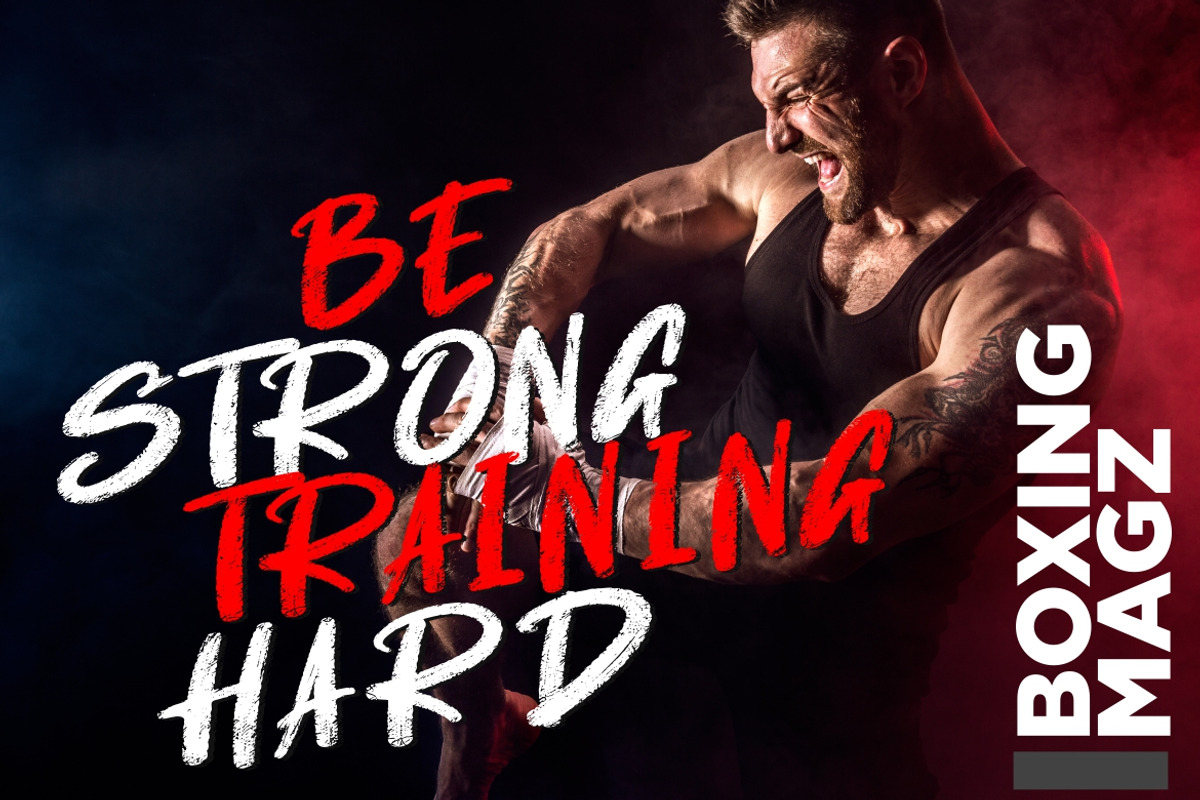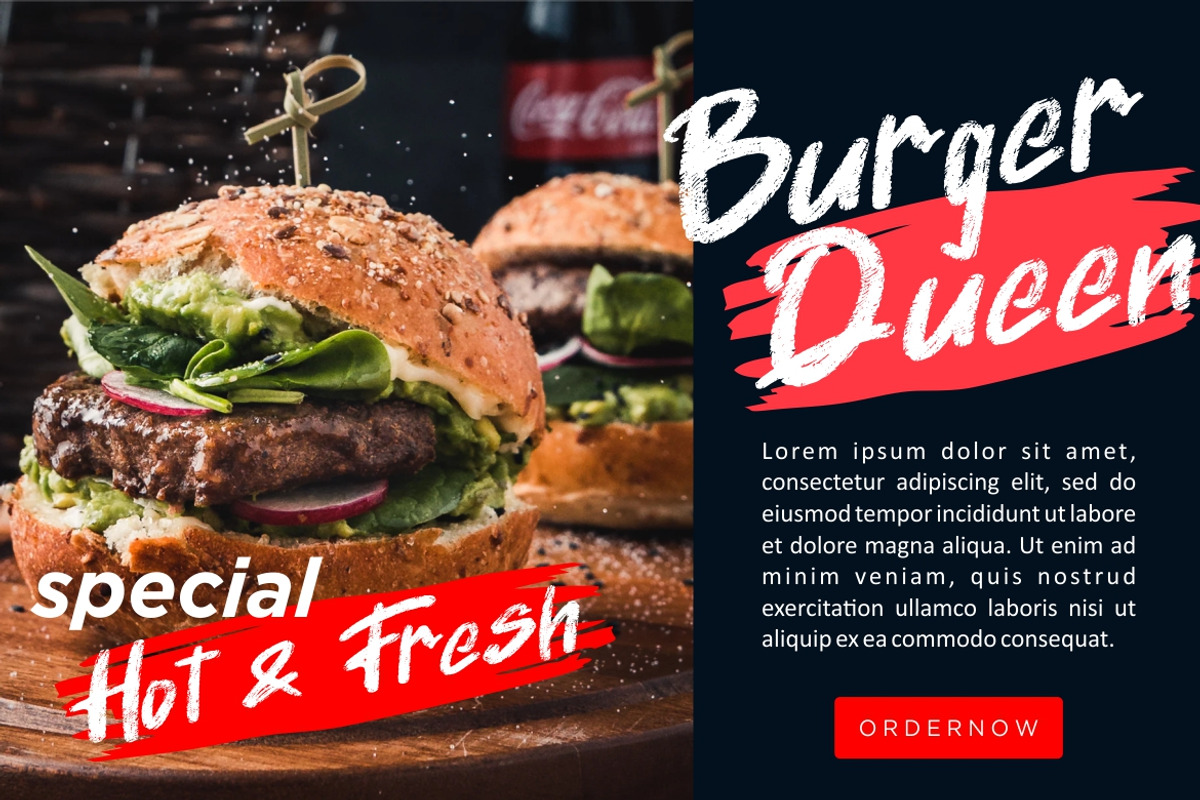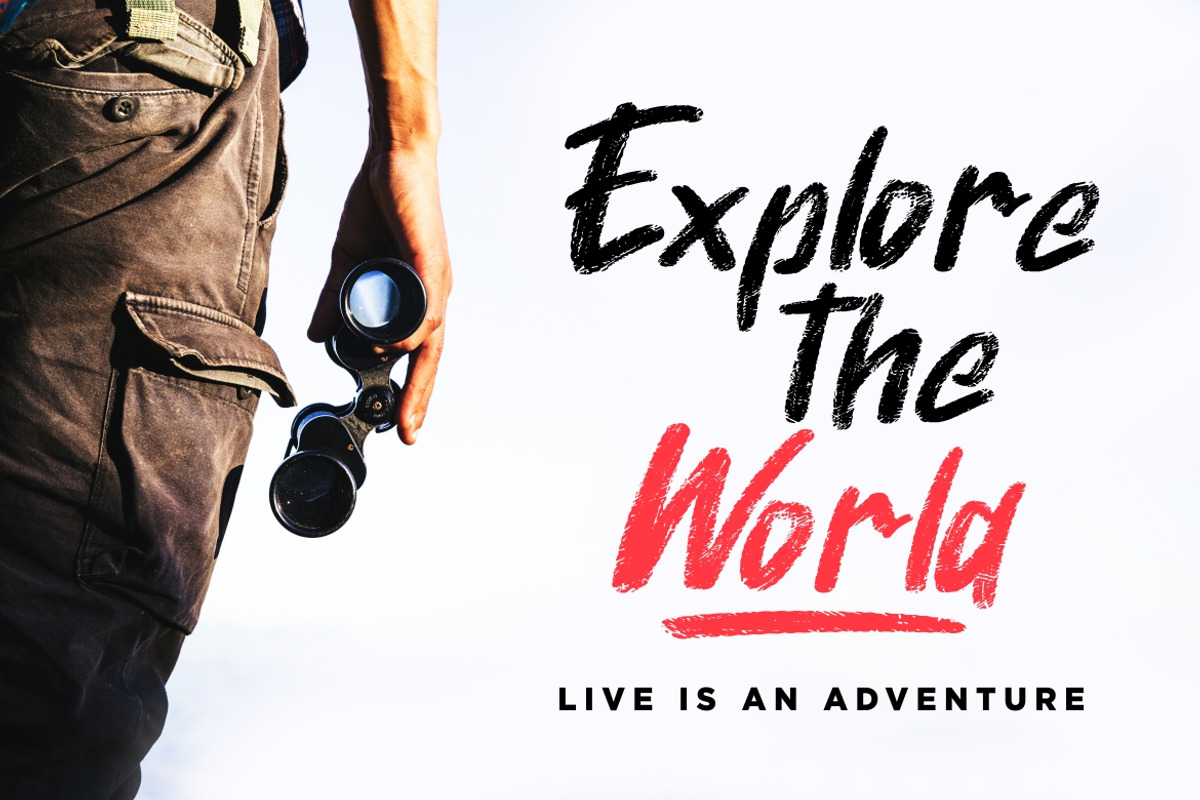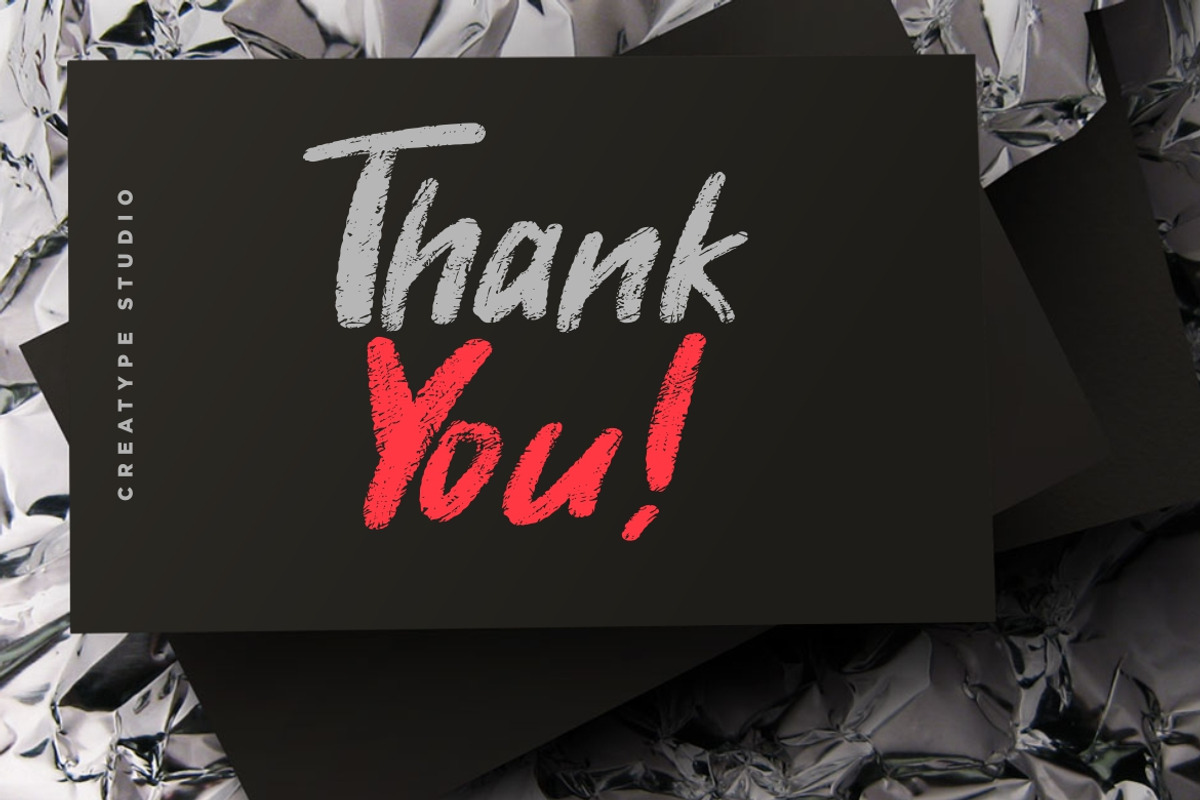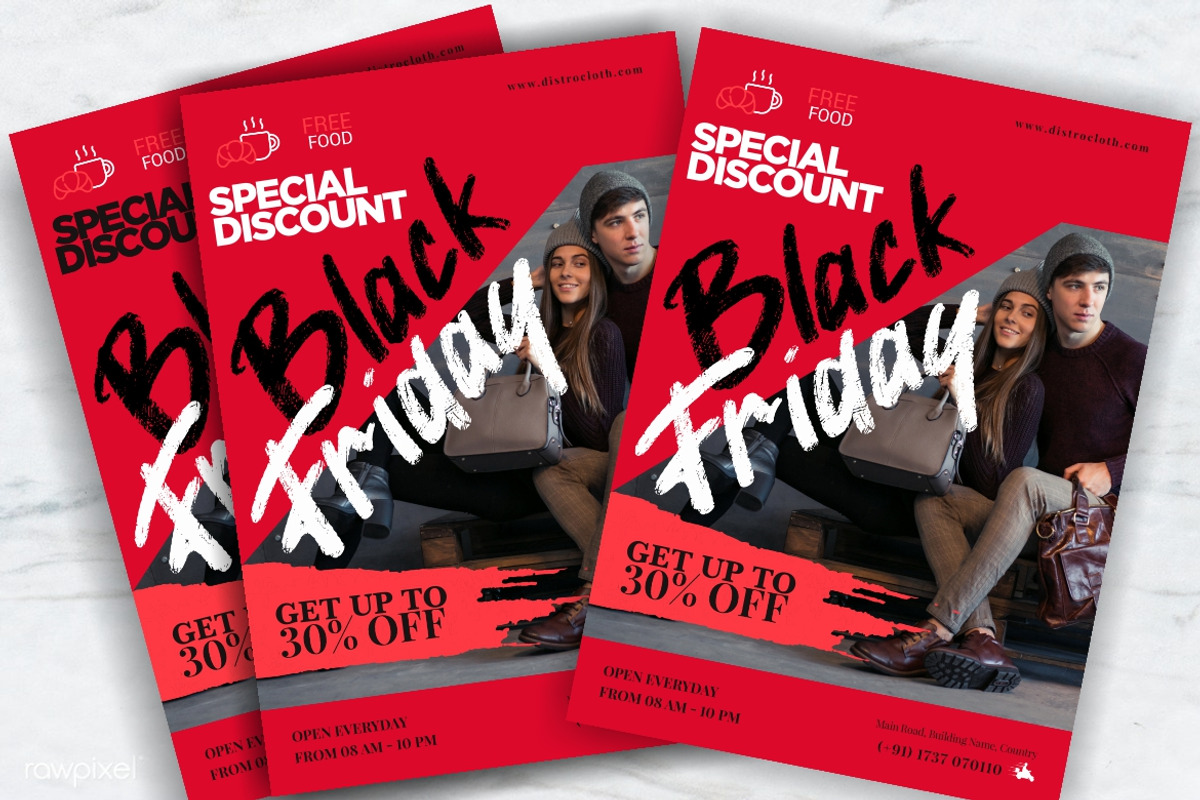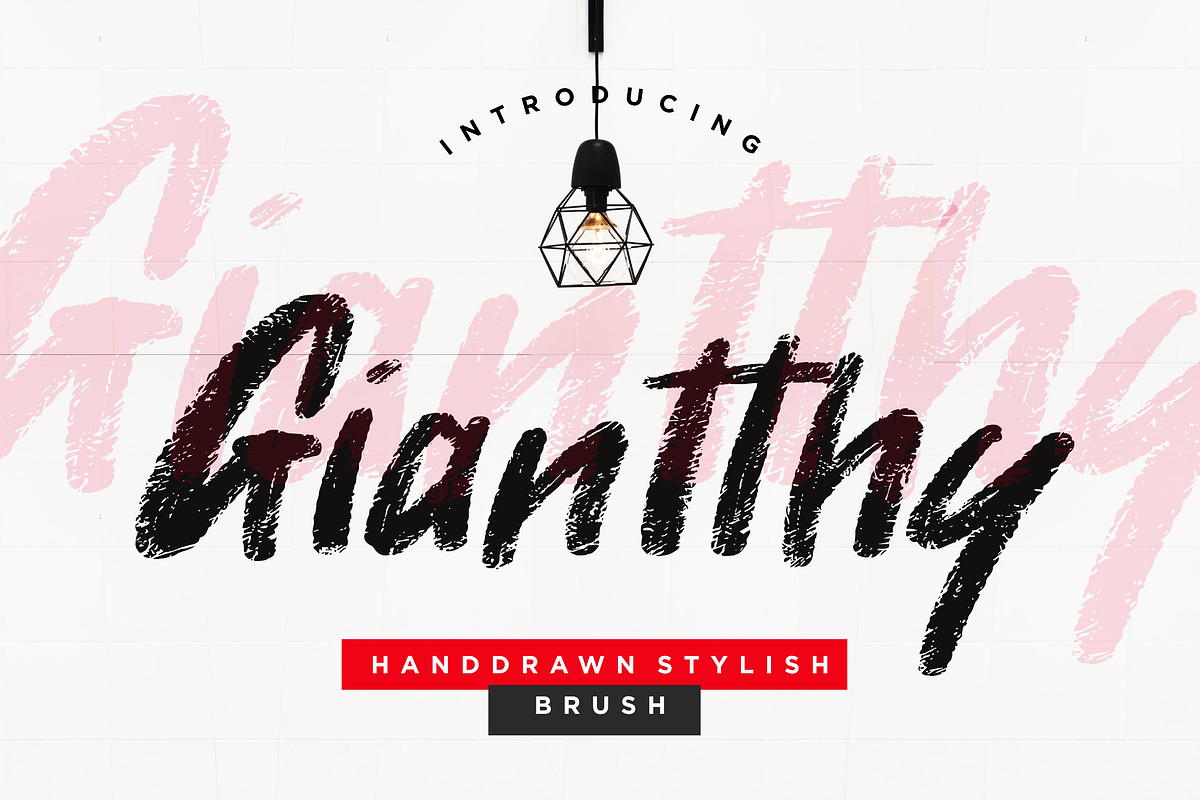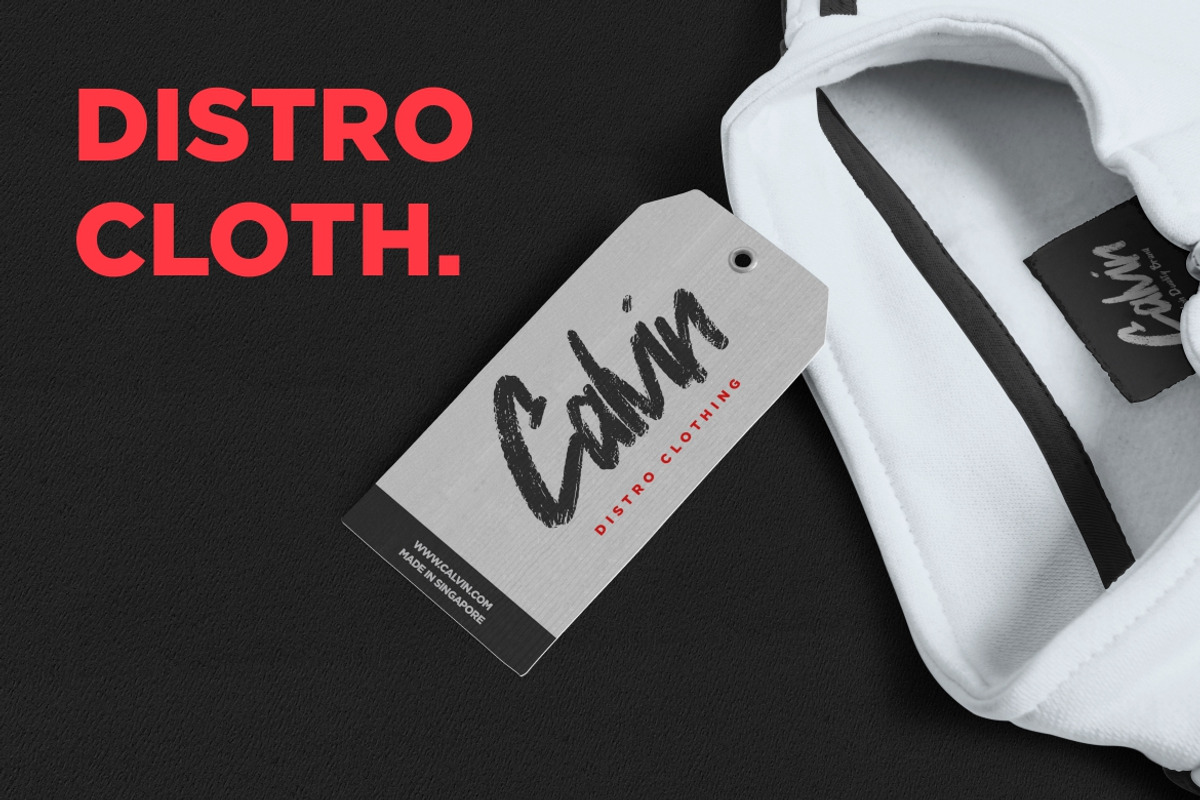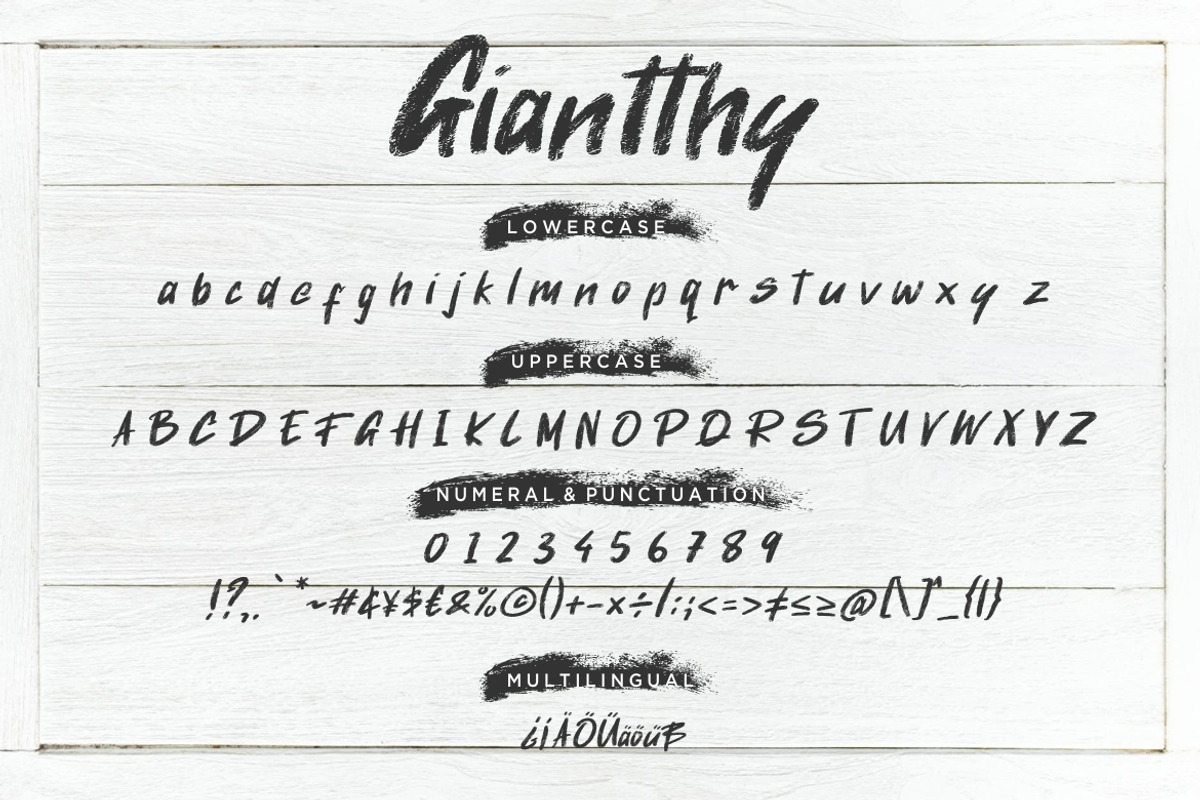
Giantthy Brush Advertisement Font
Giantthy is handwritten brush stylish script font with hand-drawn sketch.
Giantthy is perfect for branding projects, logo, wedding designs, social media posts, advertisements, product packaging, product designs, label, photography, watermark, invitation, stationery and any projects that need handwriting taste.
- Fonts include multilingual support for; ä ö ü Ä Ö Ü ß ¿ ¡
Giantthy Brush Advertisement Font by Creatype Studio fits naturally into Branding, posters, packaging, typography.